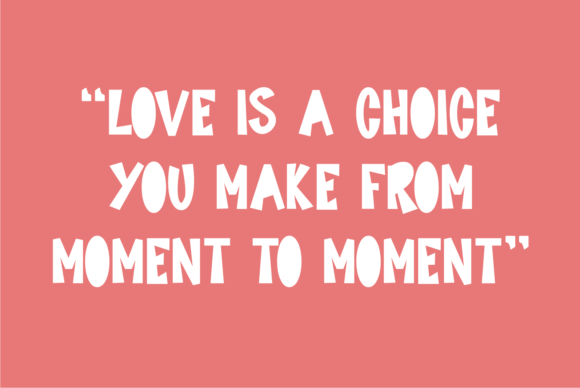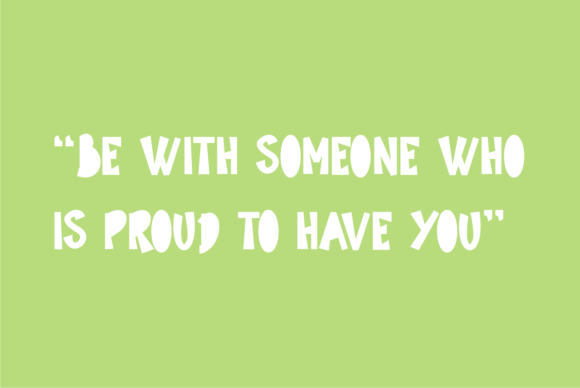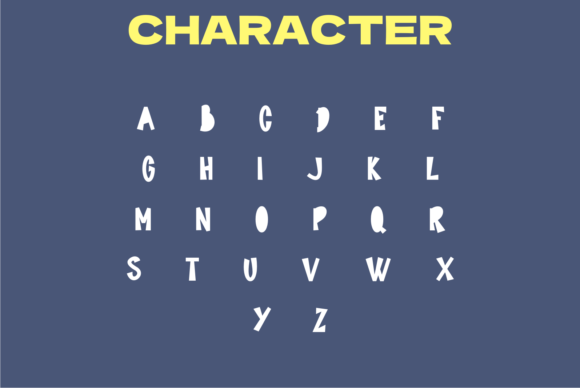
Earte Lover Font: The Ultimate Display Font for Creative Projects
Are you tired of using the same old fonts for your creative projects? Look no further than the Earte Lover Font, a thick-lettered and cool display font that’s sure to take your designs to the next level. With its simple yet strong visual effect, this font is perfect for designers and crafters who want to make their creations stand out from the crowd.
What Makes Earte Lover Font So Special?
Earte Lover Font is a game-changer for anyone looking to add a touch of personality to their designs. Its thick, bold letters are easy to read and have a strong visual impact, making it perfect for headlines, titles, and other display text. The font’s simplicity is also one of its greatest strengths, as it can be used in a variety of contexts without overwhelming the viewer.
Key Features of Earte Lover Font
- Thick-lettered and bold: Earte Lover Font features thick, bold letters that are easy to read and have a strong visual impact.
- Simple yet effective: The font’s simplicity makes it versatile and easy to use in a variety of contexts.
- Cool display font: Earte Lover Font is perfect for headlines, titles, and other display text.
- Instantly elevates your designs: With Earte Lover Font, you can instantly make your creations more appealing and attention-grabbing.
How to Use Earte Lover Font in Your Designs
Earte Lover Font is incredibly easy to use and can be incorporated into your designs in a variety of ways. Here are a few ideas to get you started:
- Headlines and titles: Use Earte Lover Font to create bold and eye-catching headlines and titles.
- Logos and branding: The font’s simplicity and boldness make it perfect for logos and branding materials.
- Social media graphics: Use Earte Lover Font to create attention-grabbing social media graphics and posts.
- Signs and posters: The font’s thick letters and strong visual effect make it perfect for signs and posters.
Why Designers and Crafters Love Earte Lover Font
Earte Lover Font has quickly become a favorite among designers and crafters, and for good reason. Here are just a few reasons why:
- Easy to read: The font’s bold letters are easy to read, even at small sizes.
- Versatile: Earte Lover Font can be used in a variety of contexts, from digital designs to print materials.
- Time-saving: With Earte Lover Font, you can quickly and easily create professional-looking designs without spending hours searching for the perfect font.
- Unique: The font’s simplicity and boldness make it stand out from more traditional fonts.
If you’re looking for a font that will take your designs to the next level, look no further than Earte Lover Font. With its thick, bold letters and simple yet strong visual effect, this font is perfect for designers and crafters who want to make their creations stand out from the crowd. Whether you’re working on a digital design or a print project, Earte Lover Font is sure to become your new go-to font.
Get Ready to Elevate Your Designs with Earte Lover Font